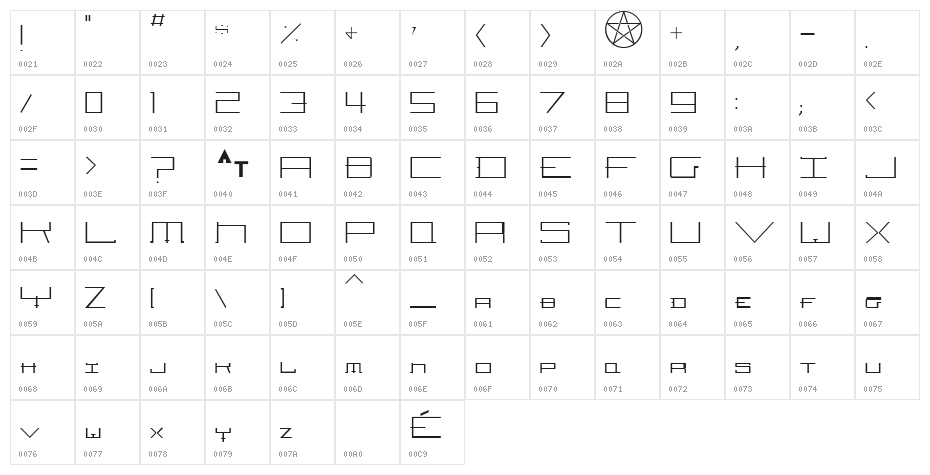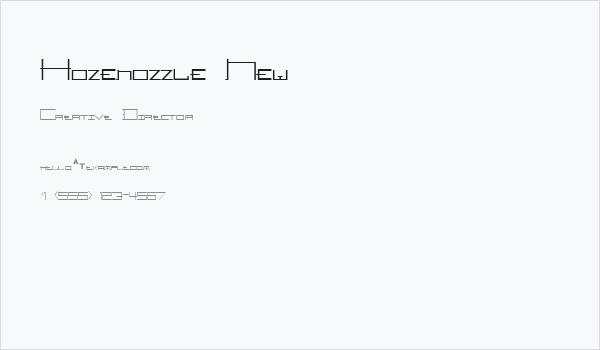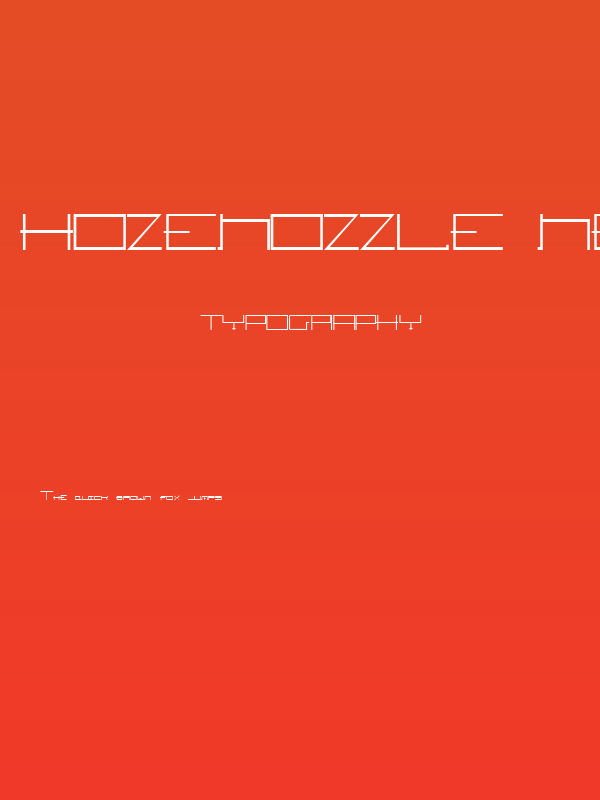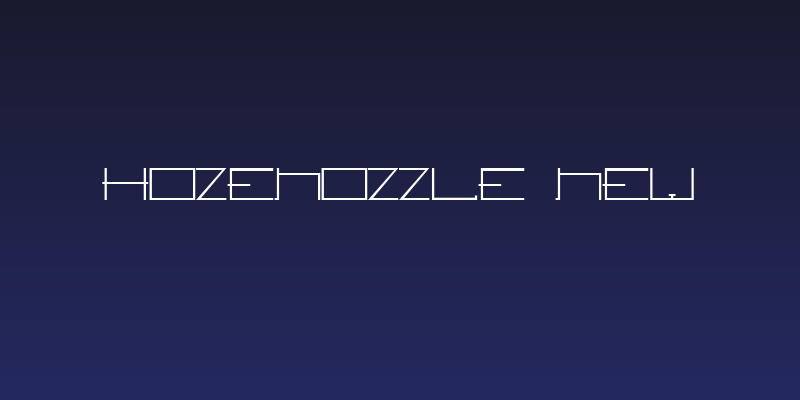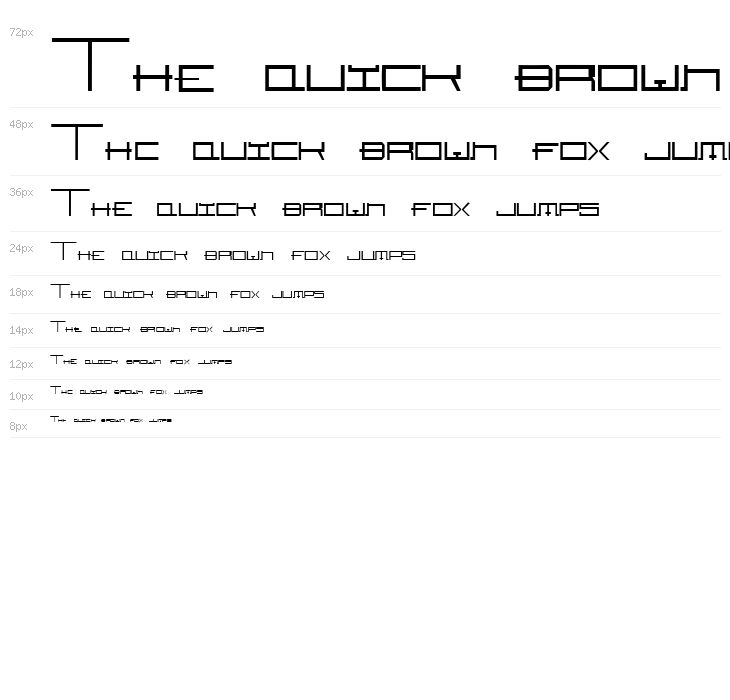
Hozenozzle New Font
Hozenozzle New Description
This font features a geometric and futuristic design with a distinct grid-like structure. Each character is composed of straight lines and right angles, creating a digital and mechanical appearance. The uppercase and lowercase letters maintain a consistent height, while the numerals and special characters follow the same angular theme. The font's unique style is further emphasized by its minimalistic and clean lines, making it suitable for modern and tech-oriented projects. The overall aesthetic is bold and striking, with a focus on precision and symmetry.
| Use Case | Logos, Headlines, Digital Art |
| Proposed Projects | Ideal for tech branding, digital art, sci-fi themed projects, and modern logos. |